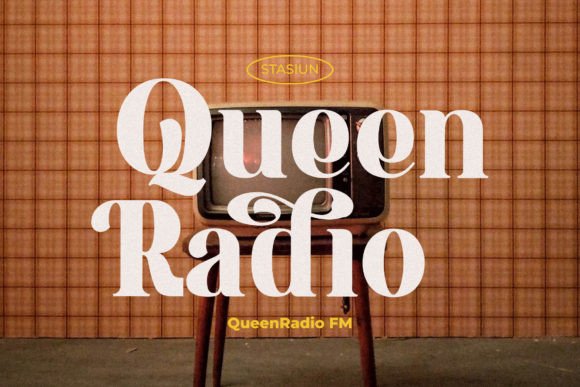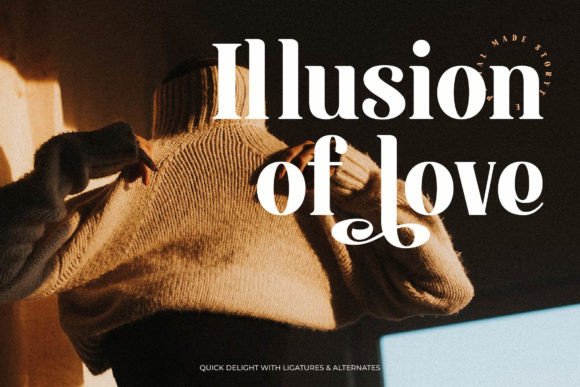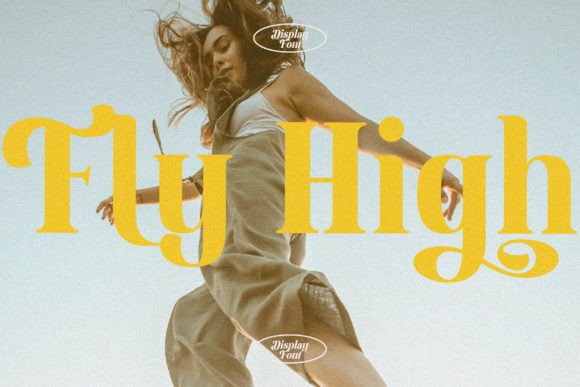
Introduction to Quick Delight Font
Have you ever been working on a creative project, pouring your heart and soul into it, only to feel like something’s missing? You’ve tried different design elements, colors, and even fonts, but nothing seems to give it that extra oomph. That’s where the Quick Delight Font comes in – a modern and stylish serif font that adds a touch of sophistication and elegance to any project.
As a valuable resource for designers, the Quick Delight Font is a high-quality typeface that’s both versatile and refined. Whether you’re working on a branding project, creating a website, or designing a brochure, this font is sure to elevate your design and make it stand out from the crowd. And the best part? It’s available for free download, making it an essential design resource for anyone looking to take their creative projects to the next level.
Key Features of Quick Delight Font
- High-quality design resource perfect for creative projects, offering a unique and modern aesthetic.
- Unique characteristics include a playful, cursive style and a range of customizable options, making it an ideal choice for creative projects.
Honest Review: Quick Delight Font
As a designer, I’m always on the lookout for high-quality design resources to elevate my creative projects. The Quick Delight Font caught my attention with its unique, playful style, and I decided to give it a try.
Here are some aspects that I think work well:
- ✨ The font’s high-quality design makes it perfect for creative projects that require a touch of whimsy.
- ⚠️ The font’s versatility is somewhat limited, as it’s best suited for projects with a playful, lighthearted tone.
- ⚠️ Some users may find the font’s style too childish for more formal or professional projects.
Overall, I think the Quick Delight Font is a fantastic design resource for designers looking to add a playful touch to their projects. While it may not be suitable for every project, it’s a great option for those who want to inject some fun and creativity into their designs.
Tips for Getting the Most Out of the Quick Delight Font
Experiment with different font sizes, colors, and styles to create visually appealing designs. Use the font in combination with other design elements to create a cohesive look. Consider using the font with a transparent background to add a touch of elegance to your design.
Common Use Cases for the Quick Delight Font
The Quick Delight Font is ideal for use in creative projects, such as logos, business cards, brochures, and social media graphics. Its high-quality design makes it an excellent choice for presentations, documents, and other professional materials.